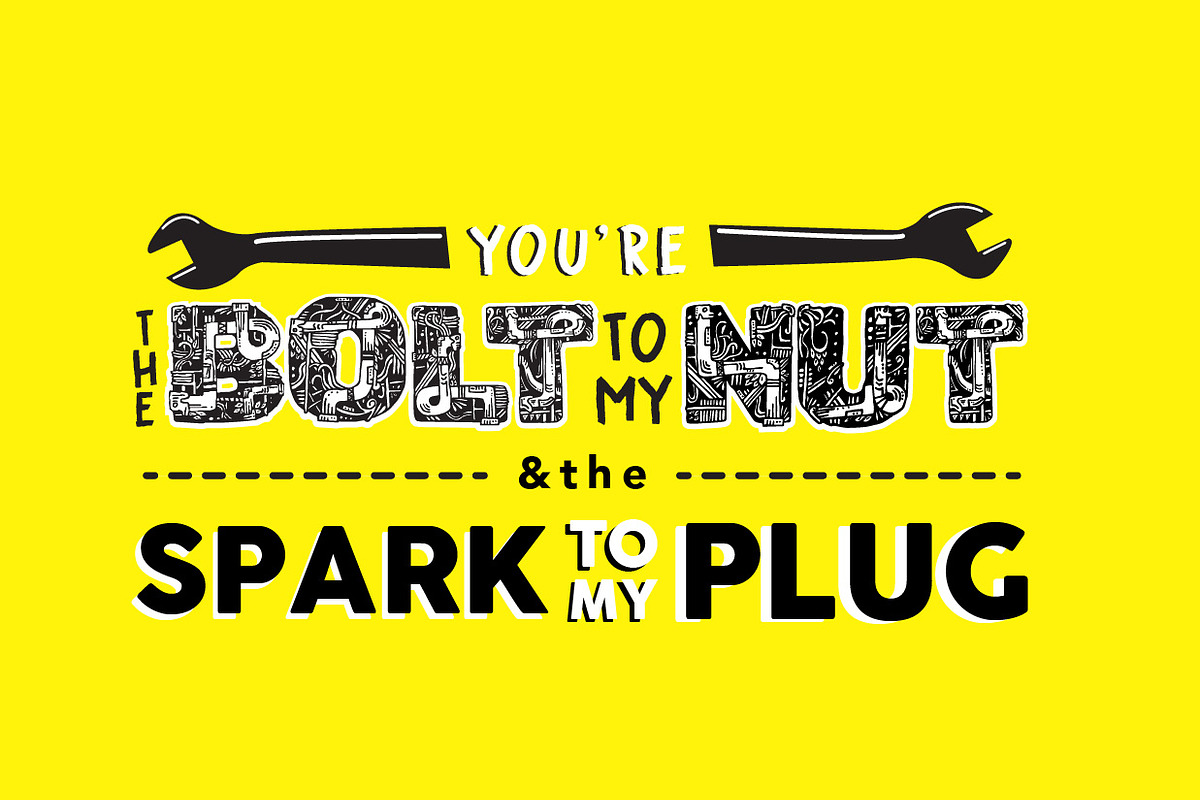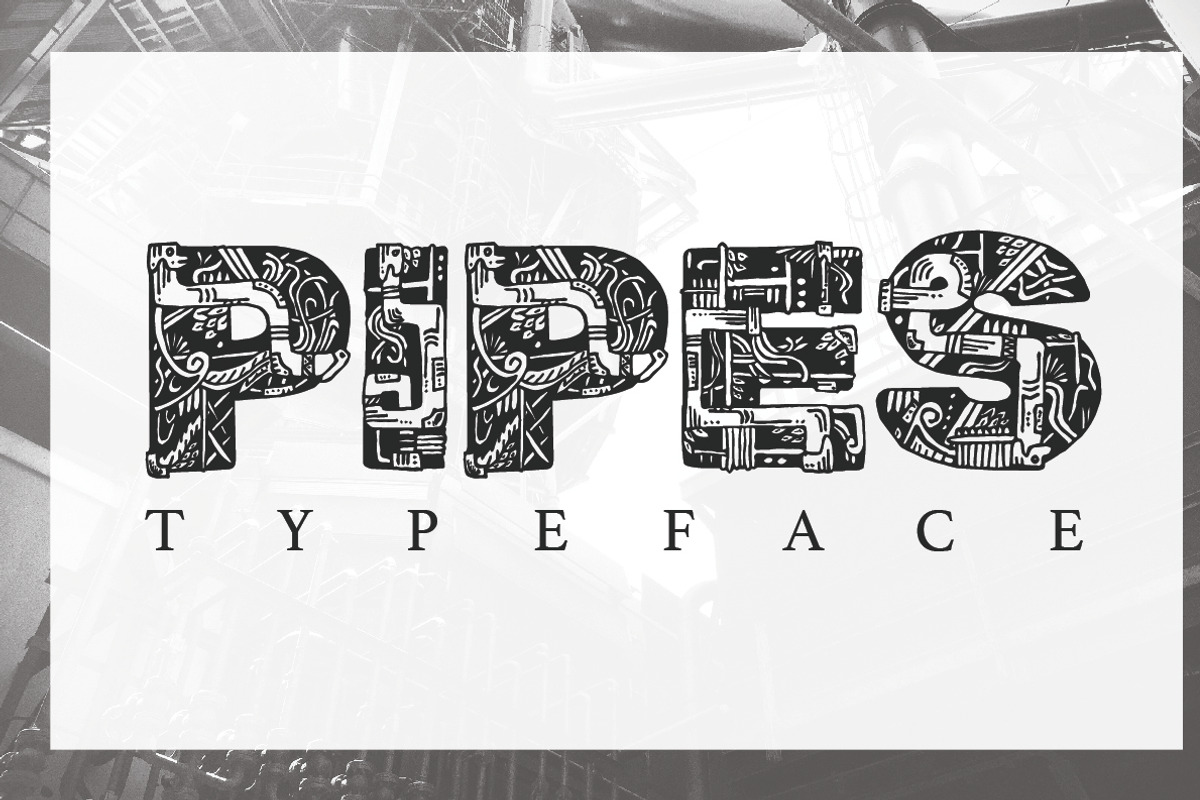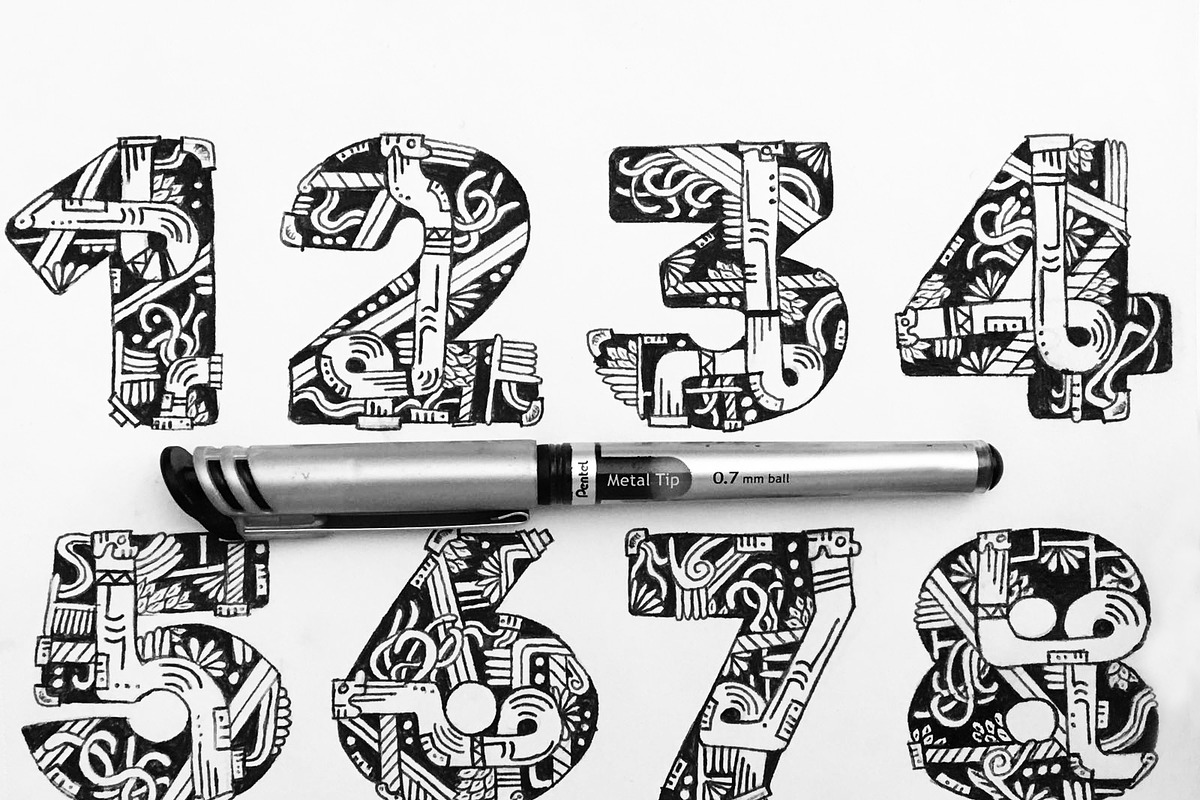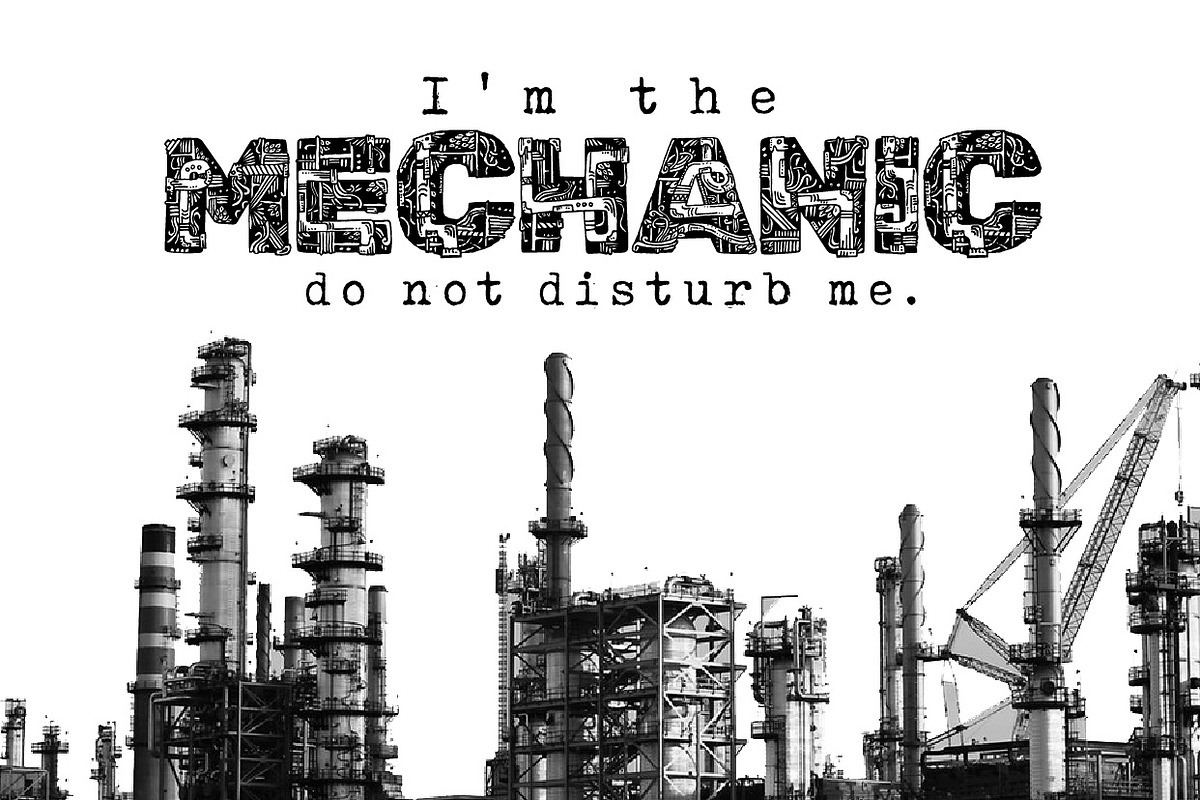
Pipes
Pipes is a display hand made font inspired in the industrial revolution. Get creative with it! Enjoy!
- Character Set A-Z upper case, numerals, and punctuation.